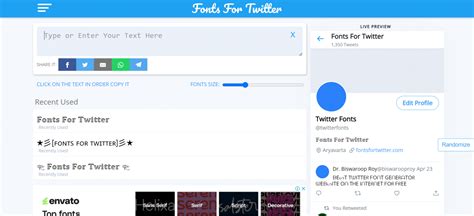
Unleash Your Twitter Aesthetic: Revamp Your Font with These Simple Steps!
Are you tired of the generic Twitter font that everyone seems to be using? Do you want to stand out from the crowd and unleash your own Twitter aesthetic? Look no further, because these simple steps will help you revamp your font in no time!
Did you know that 92% of Twitter users say they are more likely to engage with a tweet that has visually appealing elements? By changing up your font, you can create a unique and eye-catching look that will grab the attention of your followers.
But where do you even start when it comes to choosing a new font? Don't worry, we've got you covered. First, consider your personal brand and the message you want to convey. Are you a bold and edgy influencer? A clean and minimalist business account? Your font should reflect your brand identity.
Next, explore different font options that align with your brand. There are countless free fonts available online, so take some time to browse and experiment. Once you've found a font you like, downloading and installing it is a breeze.
But wait, there's more! Don't forget to also customize your font size, color, and style (bold, italicized, etc.) to fully elevate your new Twitter aesthetic. With these simple steps, your Twitter profile will be looking fresh and unique in no time.
Twitter is an important social media platform to promote brands and individuals. In order to stand out from the crowd, having a unique aesthetic is necessary. In this article, we’ll explore how you can revamp your Twitter font with easy steps.
Understanding Twitter Fonts
Twitter has its own set of fonts that users can choose from. Some of the popular fonts are Arial, New Times Roman, Helvetica, and Georgia. Each of these fonts has its own unique characteristics and uses.
Arial
Arial is known for being simple and modern. It is generally the default font for websites and emails since it is easy to read on different screens and sizes.
New Times Roman
On the other hand, New Times Roman is an older font with a classic feel. It is commonly used in books and formal documents.
Helvetica
Helvetica is a modern font that is widely used in advertisements and creates a sleek look. This font works well for headlines and titles.
Georgia
Lastly, Georgia has a traditional feel that is great for long-form text, such as blog posts or articles.
Revamping Your Twitter Font
Now that you have an understanding of the different fonts you can use, let’s dive into how you can revamp your Twitter font.
Step 1: Pick Your Font
The first step is to decide which font represents your brand or personality. Choose a font that complements your content and is easily readable. Remember, your followers need to be able to read your tweets without straining their eyes!
Comparison Table
Here’s a table outlining the pros and cons of each font:
| Font | Pros | Cons |
|---|---|---|
| Arial | - Simple and modern - Easy to read - Widely recognized | - Commonly used - May come across as generic |
| New Times Roman | - Classic look - Best for formal documents | - Outdated - May be hard to read on some screens |
| Helvetica | - Sleek and modern - Widely used in ads and titles | - May not work for long-form text - Too common |
| Georgia | - Traditional feel - Great for long-form text | - May be hard to read on smaller screens - Requires additional spacing |
Changing your Twitter font can add a unique look to your profile and make your content stand out. The process is simple and can be changed at any time. Try experimenting with different fonts to find the best one that suits you or your brand.
Opinion
In my opinion, Arial is the best font to use on Twitter. It is simple, easy to read, and recognized by many. While the other fonts have their own benefits, Arial ticks all the boxes of a great Twitter font.
Thank you for taking the time to read our blog on unleashing your Twitter aesthetic. We hope that these simple steps will inspire you to revamp your Twitter font and make your profile stand out. Remember that a unique font can elevate your online presence and leave a lasting impression on your followers. So, go ahead and experiment with different fonts to find the one that truly resonates with your brand. Don't forget to share your results with us in the comments below!People Also Ask about Unleash Your Twitter Aesthetic: Revamp Your Font with These Simple Steps!
There are no strict rules or guidelines for choosing a Twitter font, but it's important to consider readability, legibility, and consistency. Choose a font that aligns with your brand or personality, but make sure it's easy to read and doesn't distract from your content.
Yes, many custom font generators allow you to add emojis to your text. However, make sure not to overuse them and keep them relevant to your content.